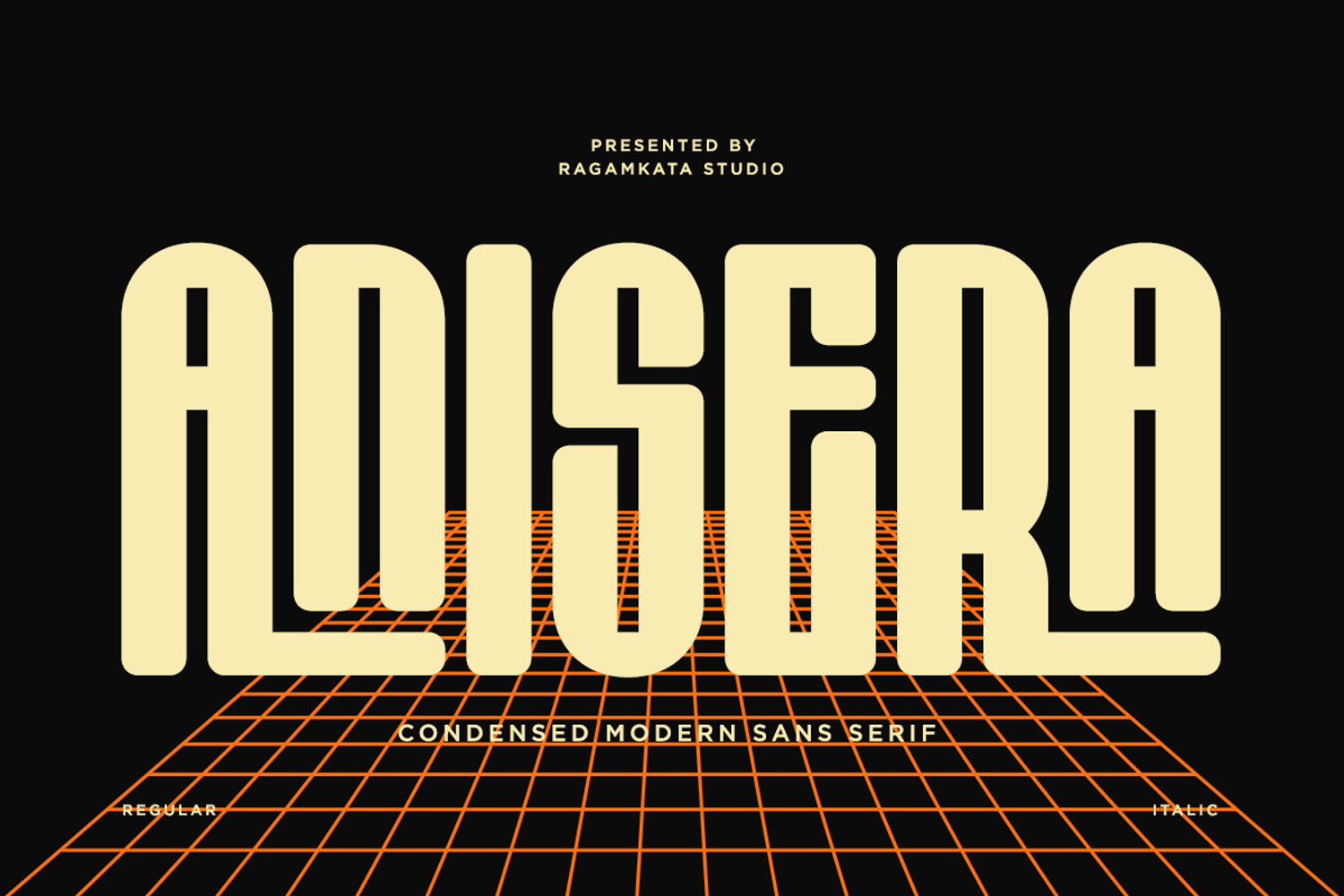
Anisera - Condensed Modern Sans Serif
Anisera is a condensed decorative typeface that raises the bar for modern typography. Featuring a refined, contemporary look, Anisera blends sophistication with practicality and includes an extensive selection of carefully crafted ligatures.
Designed to optimize space without sacrificing clarity, Anisera’s narrow form makes it perfect for titles, branding, packaging, and digital layouts, delivering a striking visual impact that commands attention.
- Stylish Ligature Set